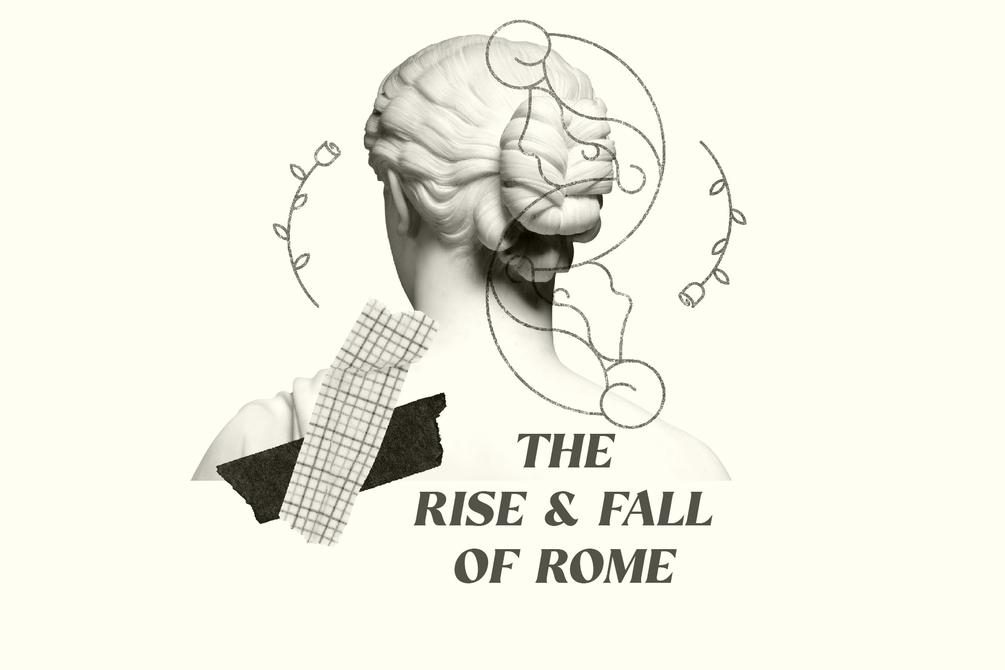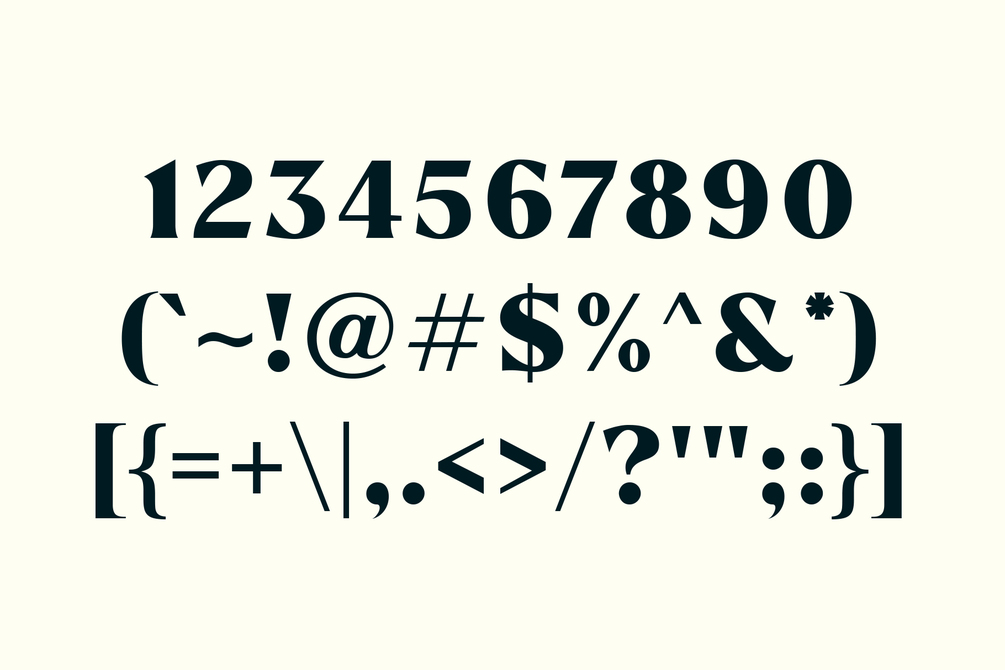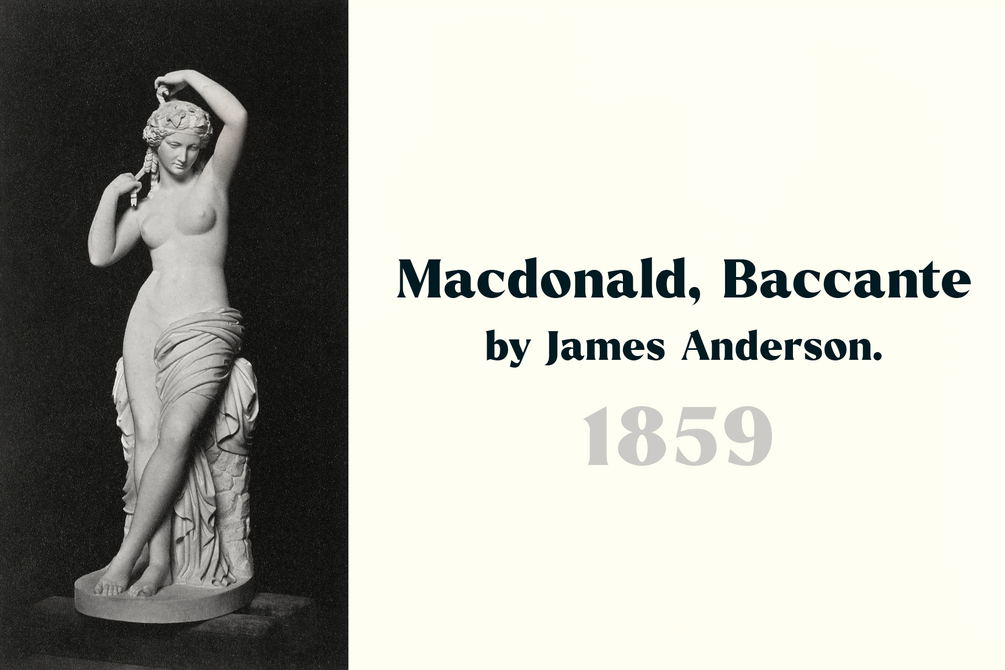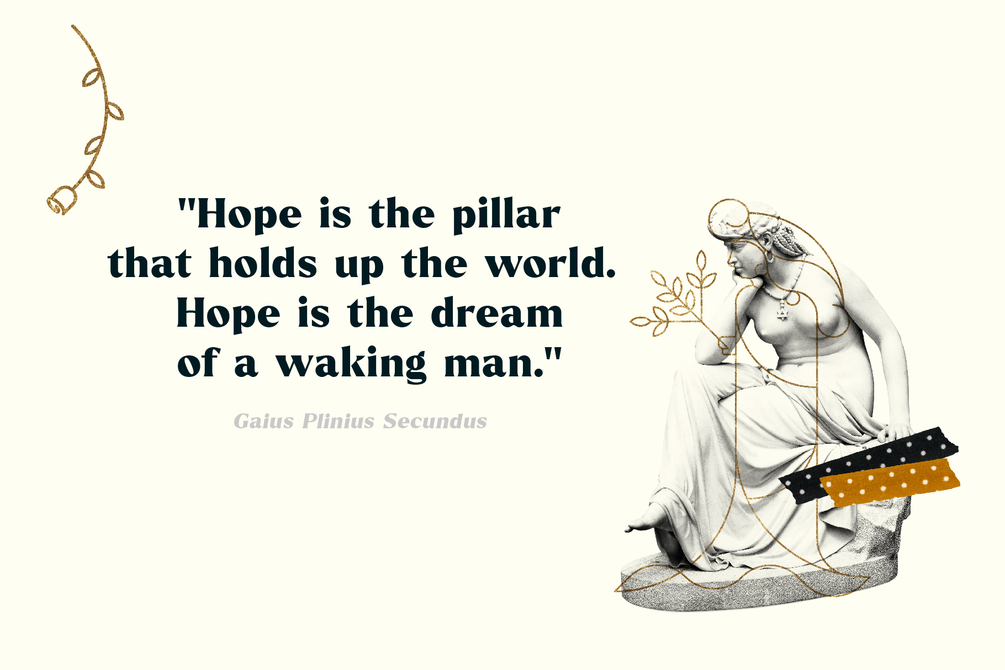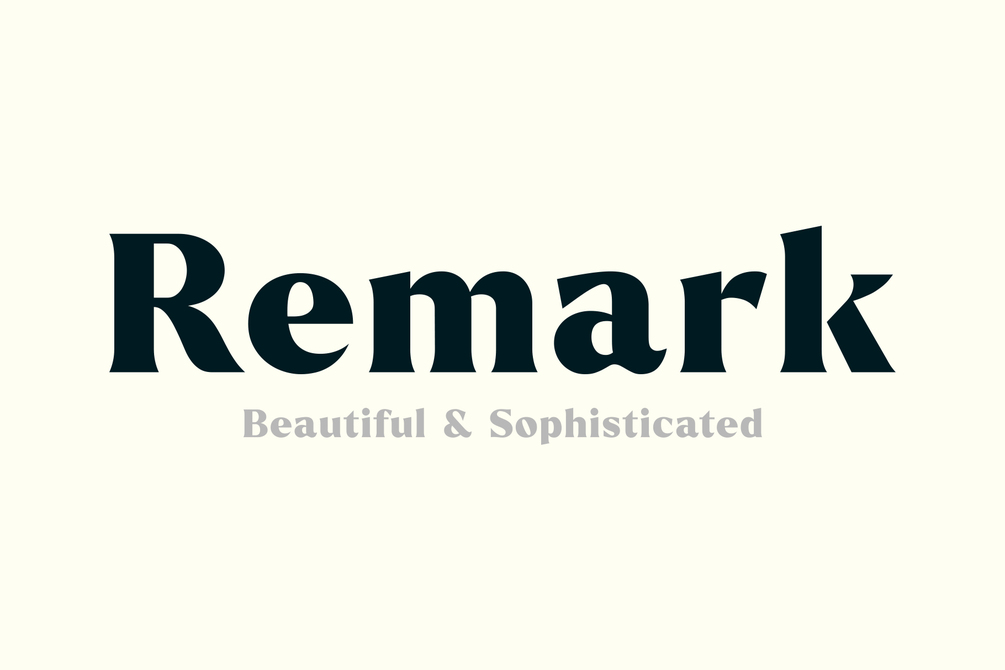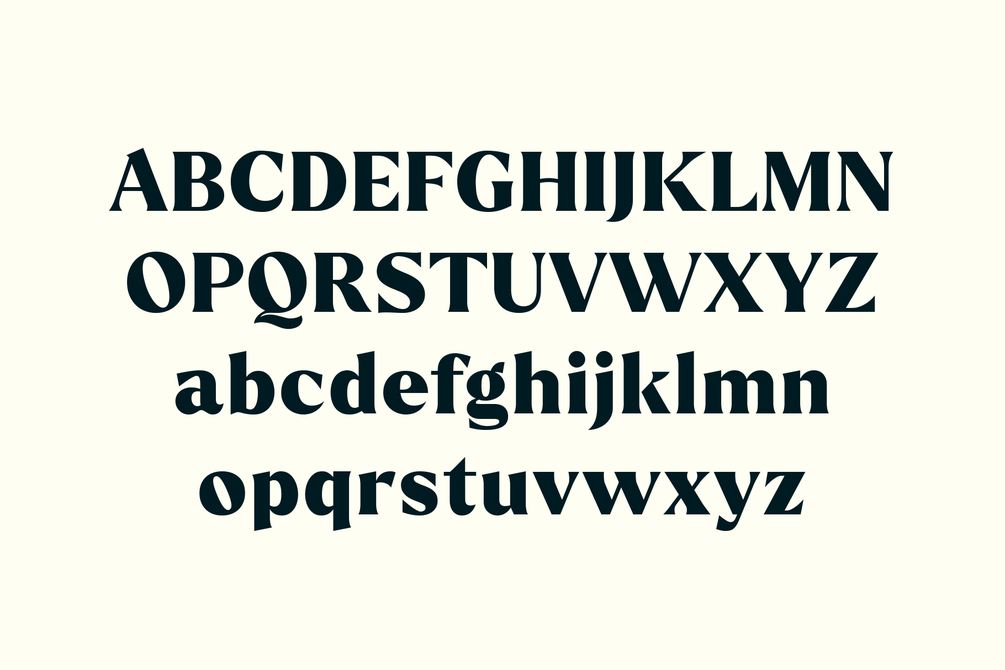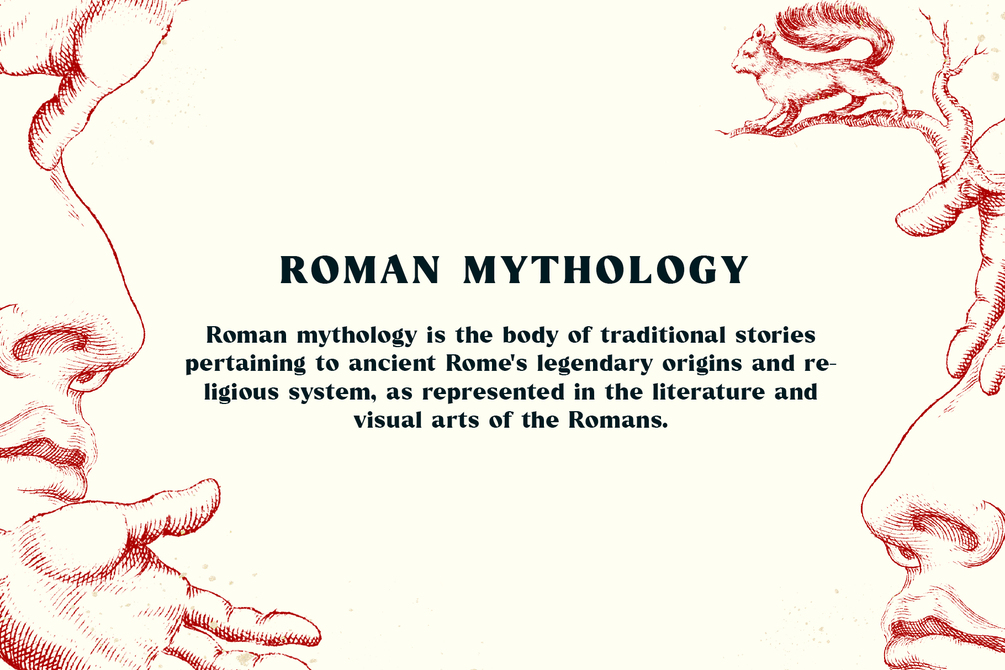
Remark - Roman Inspired Typeface
Remark is a beautiful and sophisticated serif typeface inspired by the Ancient Roman Empire. The font's bold and sharp edges demand the reader's attention, which makes it perfect for commanding designs.
Remark is best suitable for headings, quotes, posters, tshirts, branding, websites, labels, invitations, packaging, stationery, novels, and much more. If communication is your goal, then this font is perfect for you.
Features:
• uppercase & lowercase
• numbers and punctuation